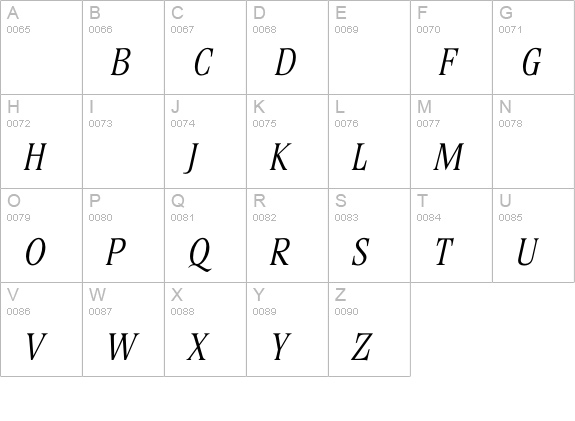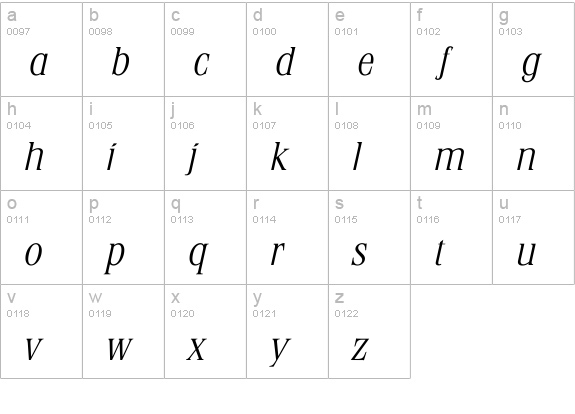
StirlingLightItalic Font Details
StirlingLightItalic font exudes elegance and sophistication with its delicate, slanted letterforms. This font strikes the perfect balance between modernity and classic style, making it ideal for a wide range of design projects. The graceful curves and subtle angles of StirlingLightItalic add a touch of refinement to any text, making it a versatile choice for both digital and print applications. What sets StirlingLightItalic apart is not just its aesthetic appeal, but also its accessibility. This font is available for free download at FontsMarket.com, making it easily accessible to designers and creatives looking to elevate their work with a touch of timeless charm. Whether you're designing a wedding invitation, a brand logo, or a digital ad campaign, StirlingLightItalic is sure to make a lasting impression with its unique blend of sophistication and flair. Download StirlingLightItalic today and let your creativity shine.